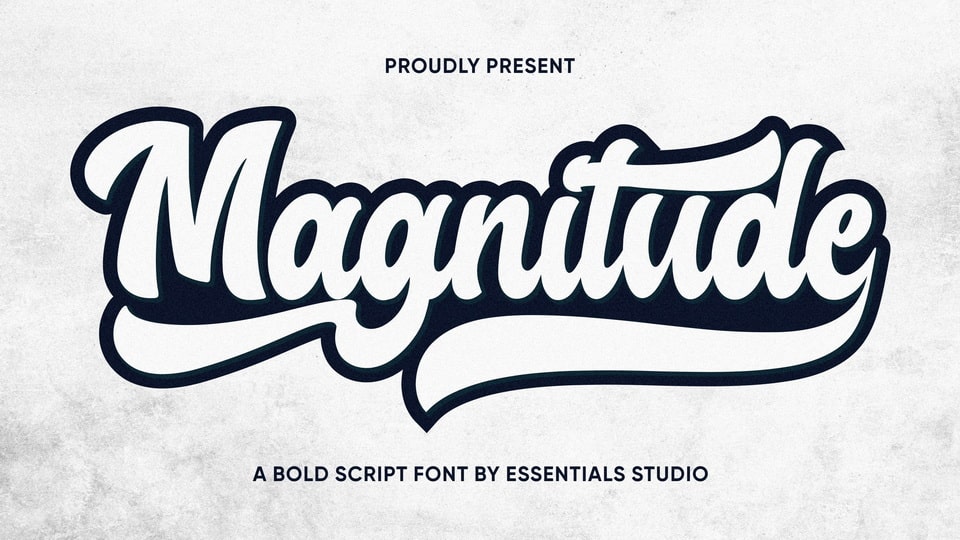
Download Magnitude font, a bold script typeface for logo lettering. Magnitude font is perfect for product packaging, branding project, magazine, social media, wedding, or just used to express words above the background.
Designer: Essentials Studio